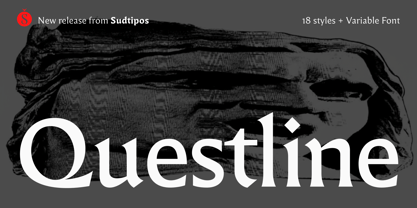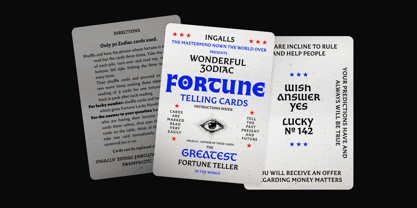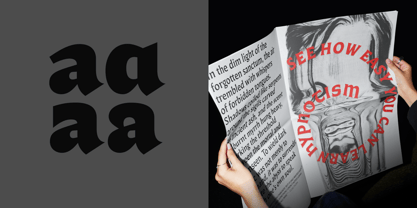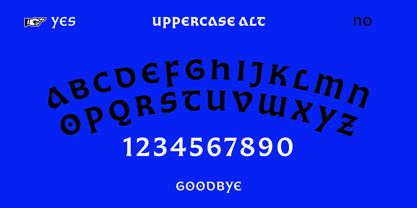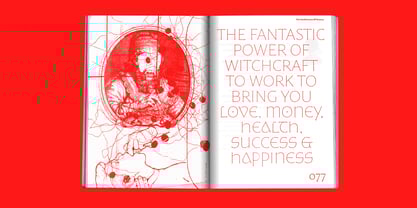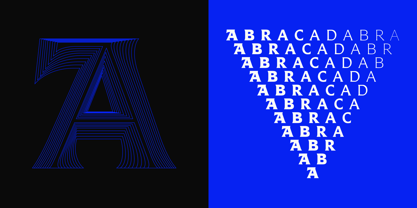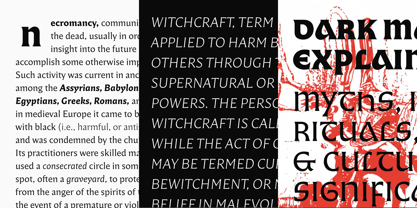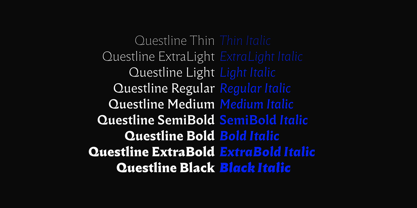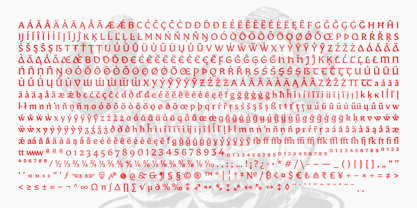
Questline
by Sudtipos
The Questline Font Family was designed by Alejandro Freitez and published by Sudtipos. Questline contains 20 styles and family package options.
Timeless forms, modern presence. Questline blends the elegance of Roman type with the structural strength of Gothic forms, resulting in a contemporary flared serif font grounded in historical tradition. Reimagining medieval letterforms through meticulous research and refined craftsmanship, its design balances contrast, rhythm, and optical precision. The typeface features consistent stroke modulation and carefully calibrated proportions that maintain visual harmony between uppercase and lowercase, along with a dedicated set of Gothic-inspired uppercase forms that provide a distinctive typographic voice. Ensuring legibility and character in both expressive display and extended reading environments. Equipped with multiple OpenType features, extensive language support, and a character set of over 750 glyphs, Questline spans 18 styles (nine weights + matching italics & Variable). Its refined detailing and structural versatility make it highly effective across both print and digital applications, delivering a cohesive and boldly confident visual presence.
Questline